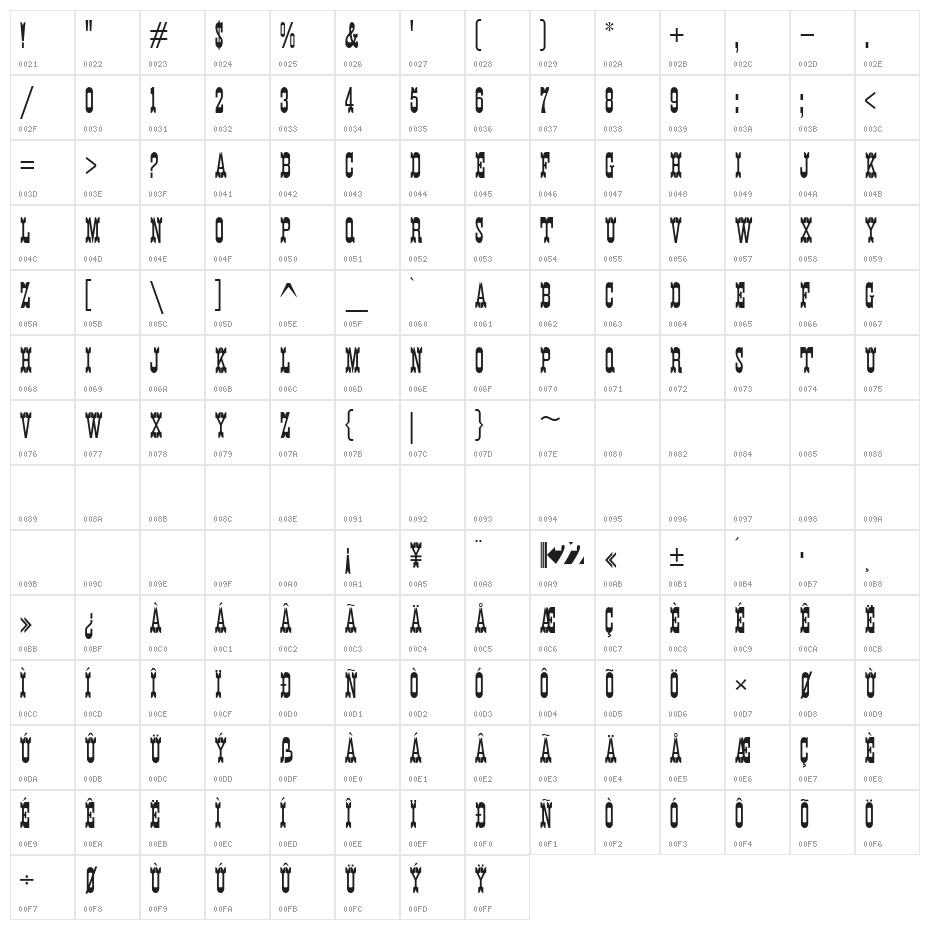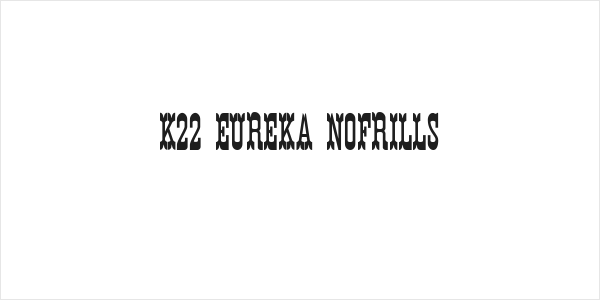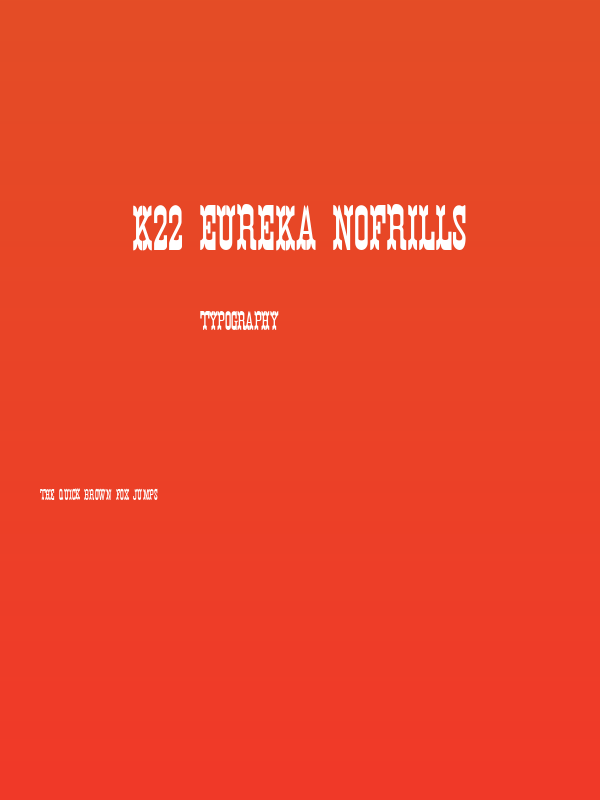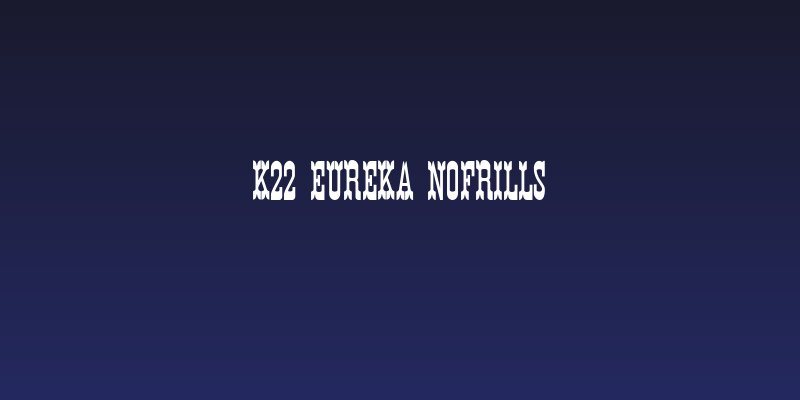
K22 Eureka NoFrills Font
K22 Eureka NoFrills Description
This font features a bold, decorative style with a strong presence. The characters have a unique, blocky appearance with intricate cut-out details that create a striking visual impact. The uppercase and lowercase letters maintain a consistent design, emphasizing the font's cohesive look. The numbers and special characters are equally bold, ensuring uniformity across all elements. The font's design is reminiscent of vintage poster typography, making it ideal for projects that require a bold statement.
| Proposed Projects | Ideal for posters, headlines, branding, and any design needing a bold, eye-catching typeface. |